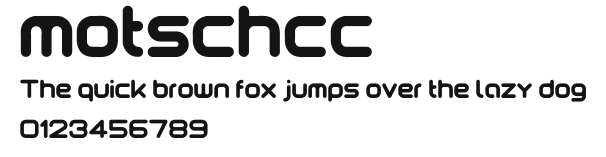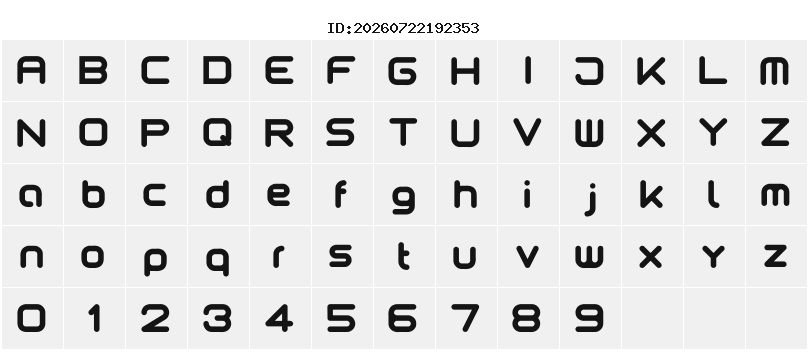
motschcc Preview
• Font Name: motschcc
• Font ID: motsch.cc font one
• Full Font Name: motschcc
• Version: motsch.cc V3 2005-09-30
• PostScript Name: motschcc
• Designer: Ing. Andreas Kuechel
About motschcc.ttf
motschcc.ttf is a modern, elegant sans-serif font designed for ultimate readability and visual harmony. Perfect for branding, headlines, web design, and print materials.